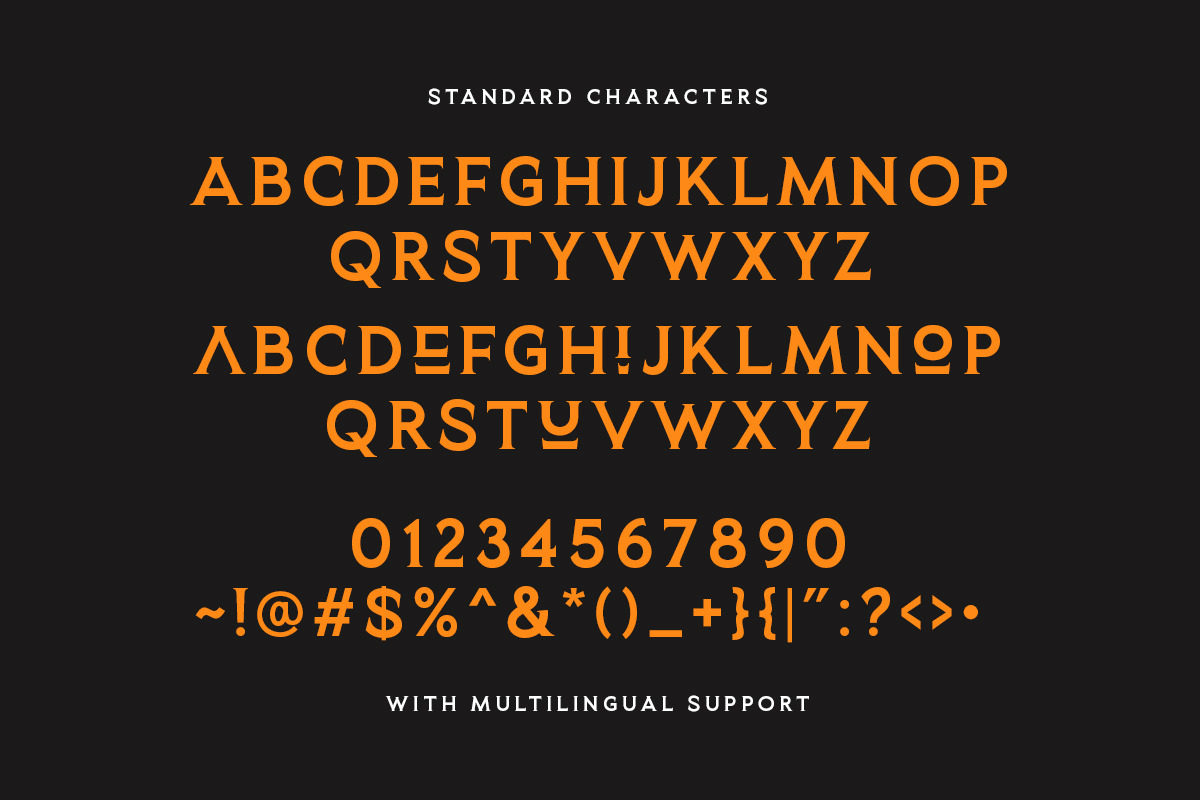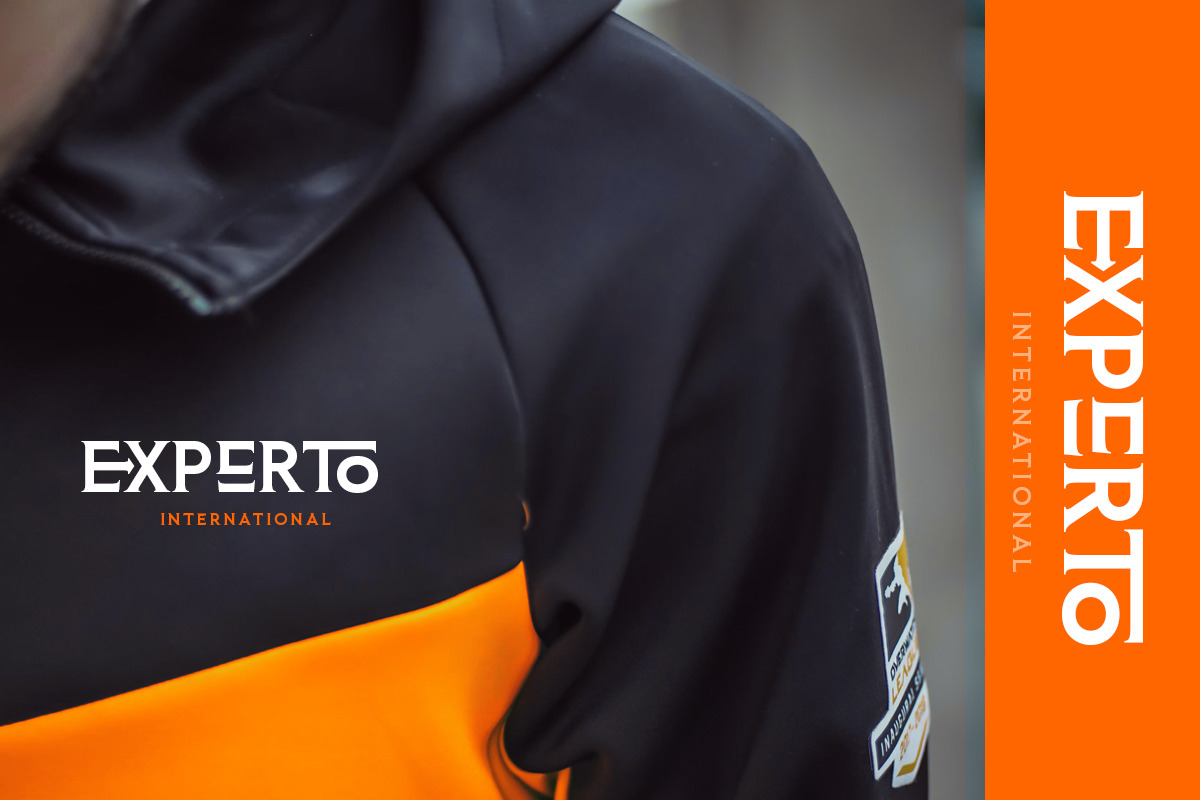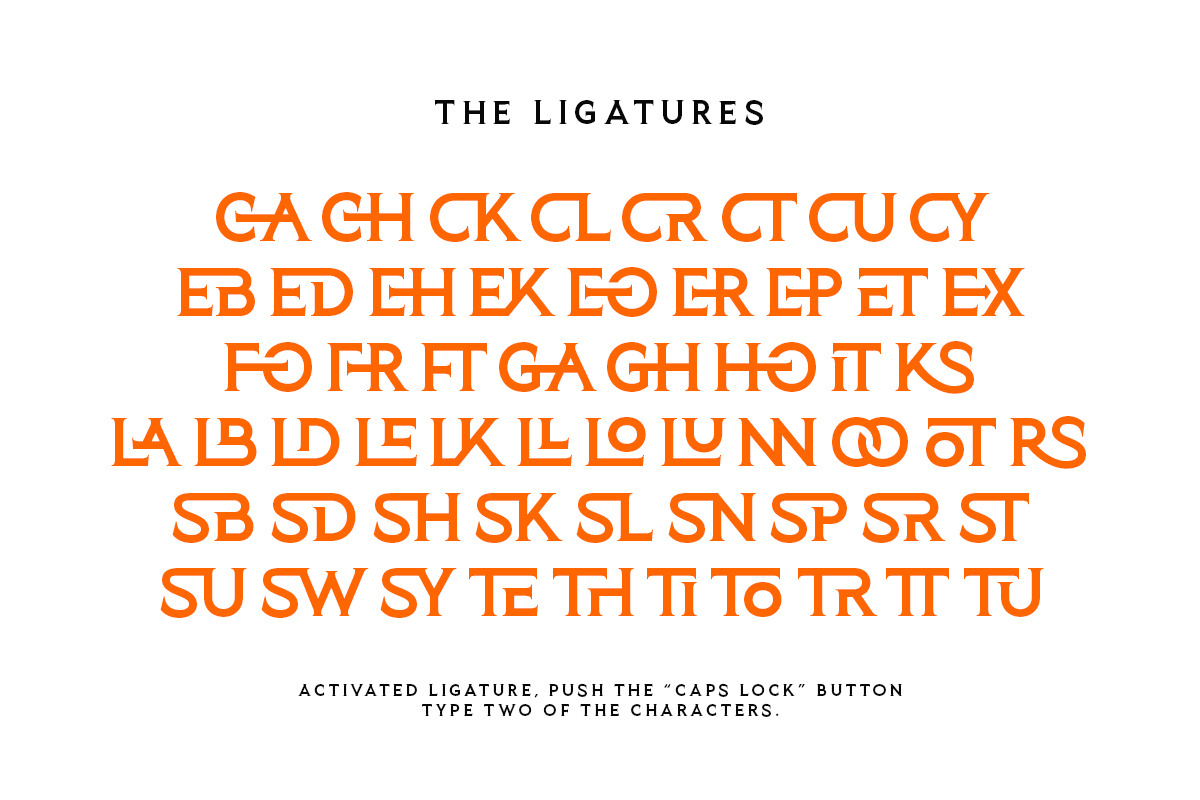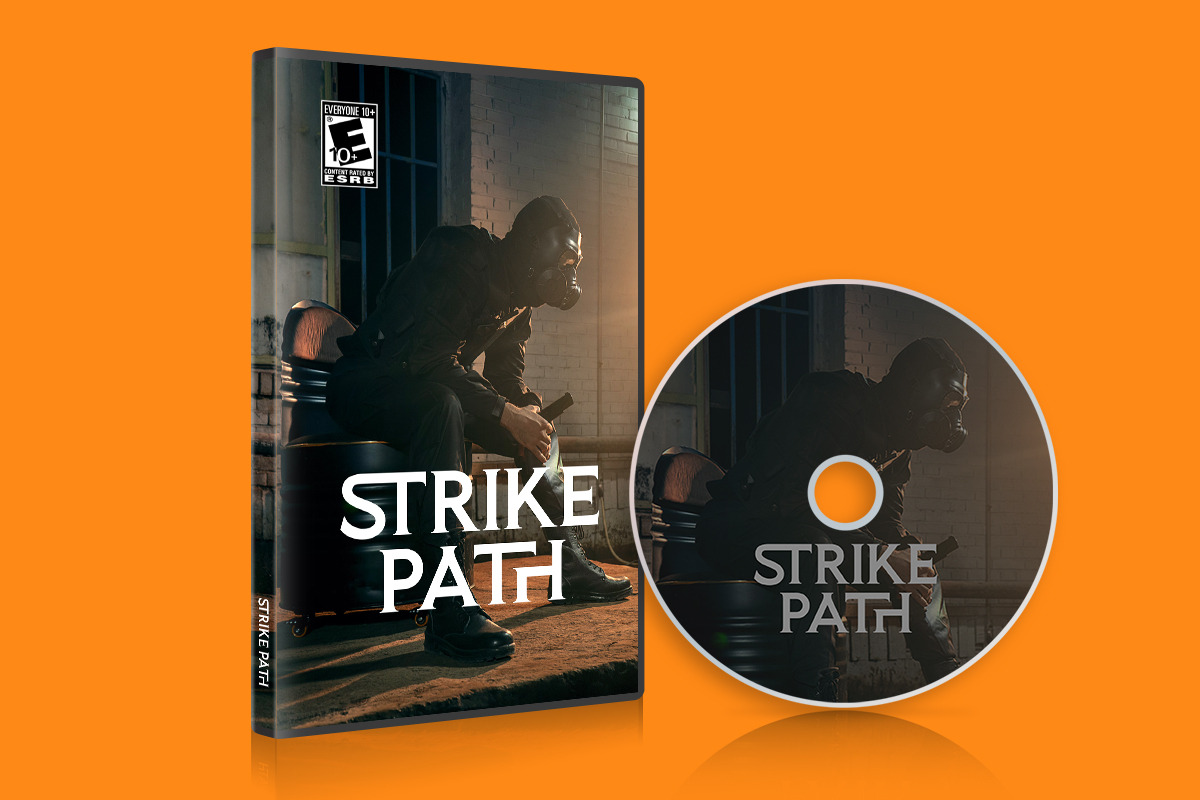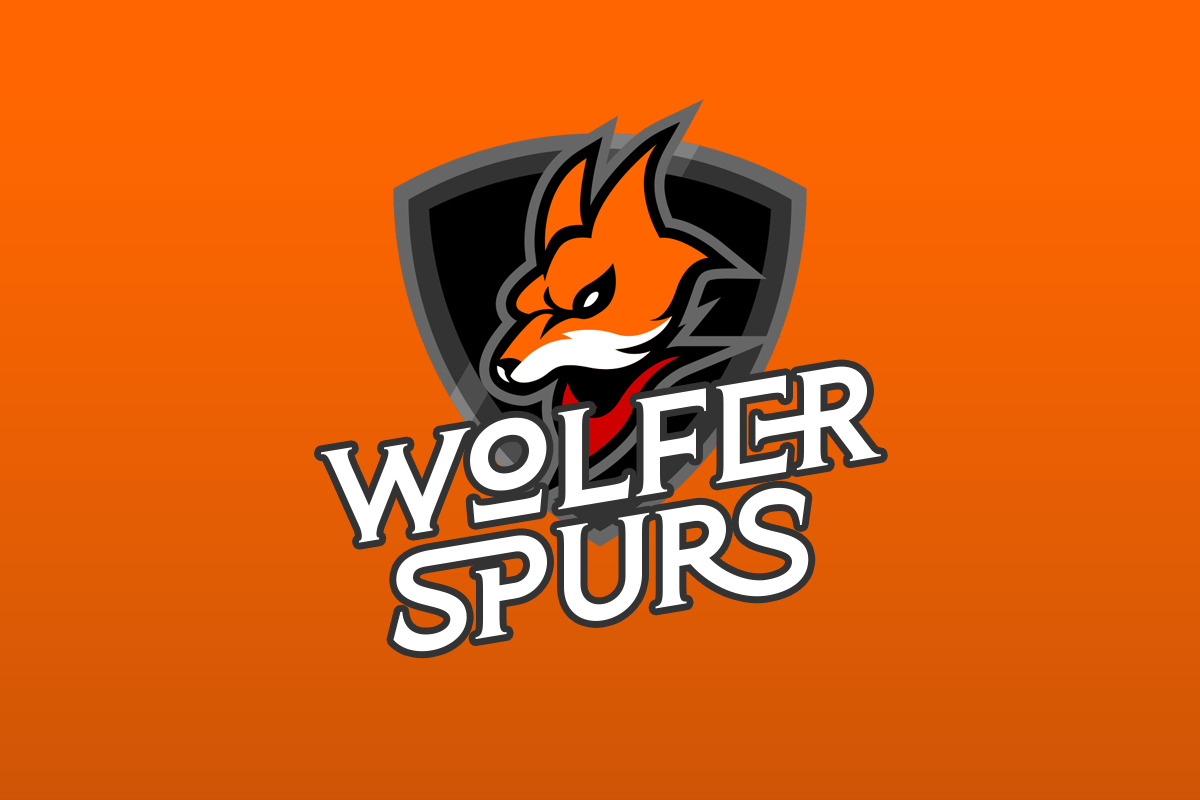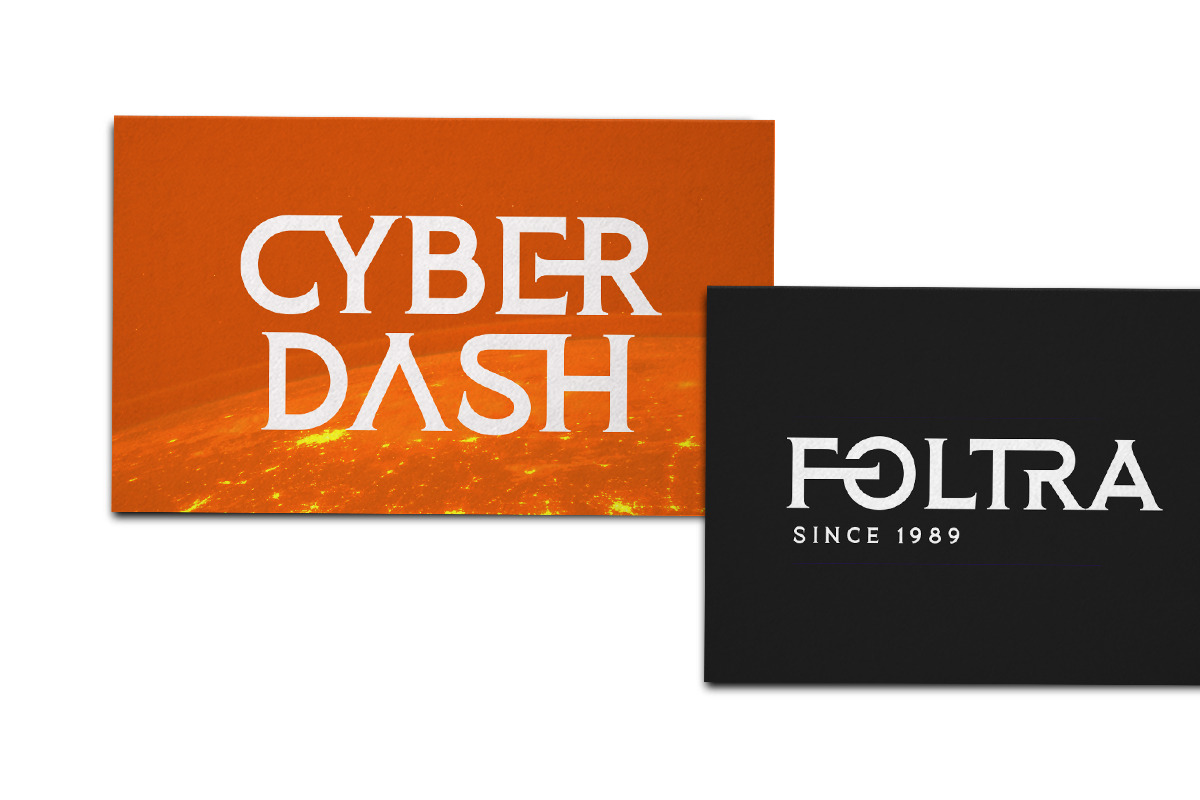
Planet Gamers - Ligature Logo Serif
Introducing, Planet Gamers, a serif logo font with unique ligatures!
Planet Gamers is a serif based font with unique and carefully crafted ligatures that will make your logo stand out clean and modern. You can use this font for any purpose, especially to make logotype. This font is suitable for e-sport logo, game, or hi-tech company logo. This font also support multilingual.